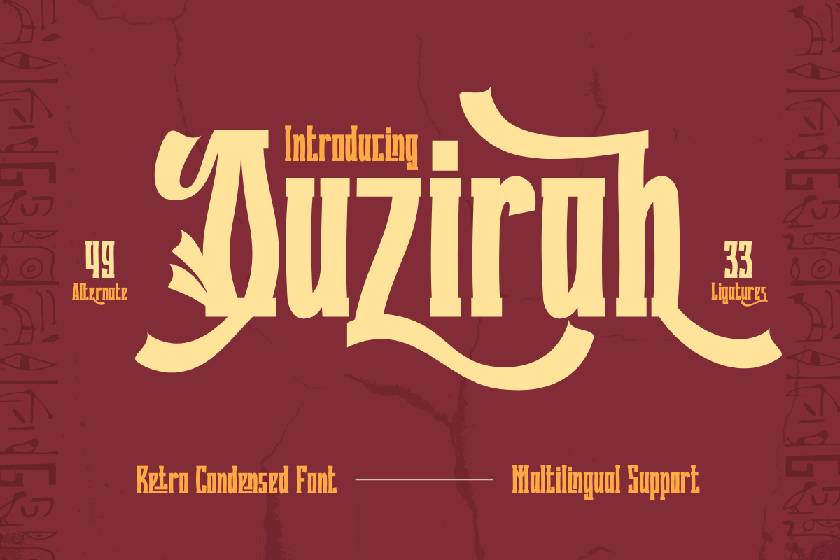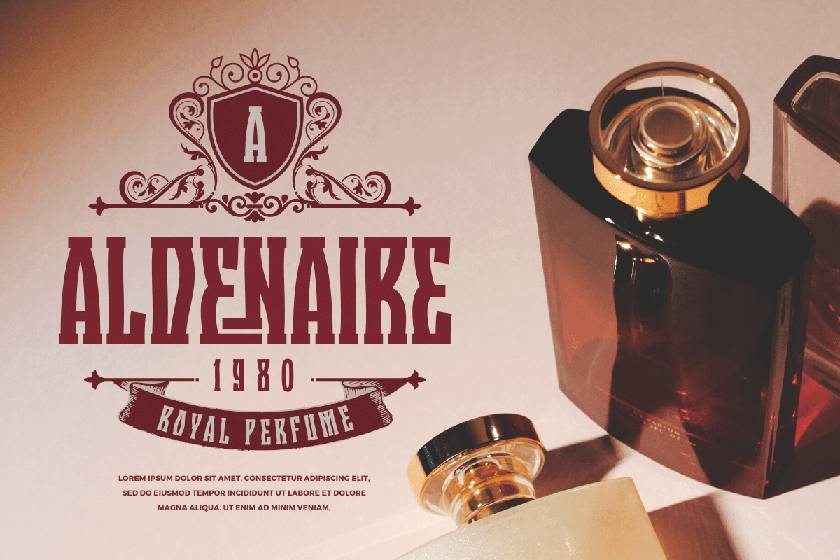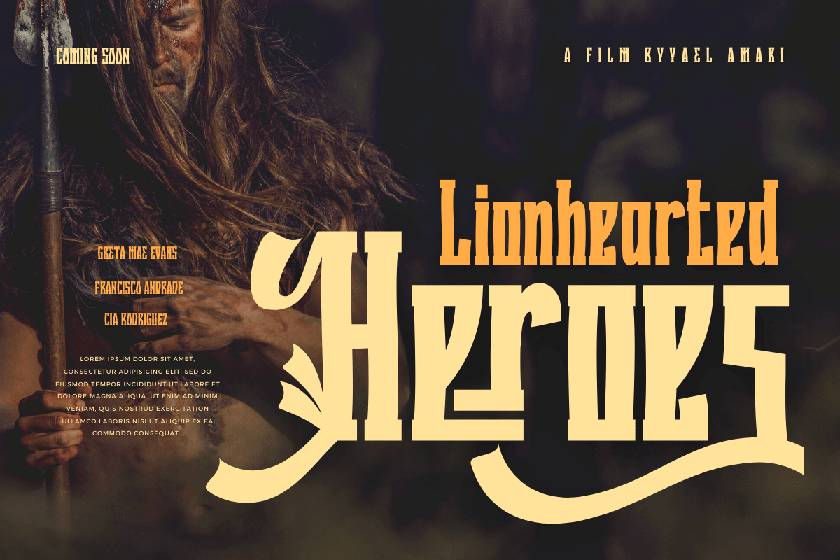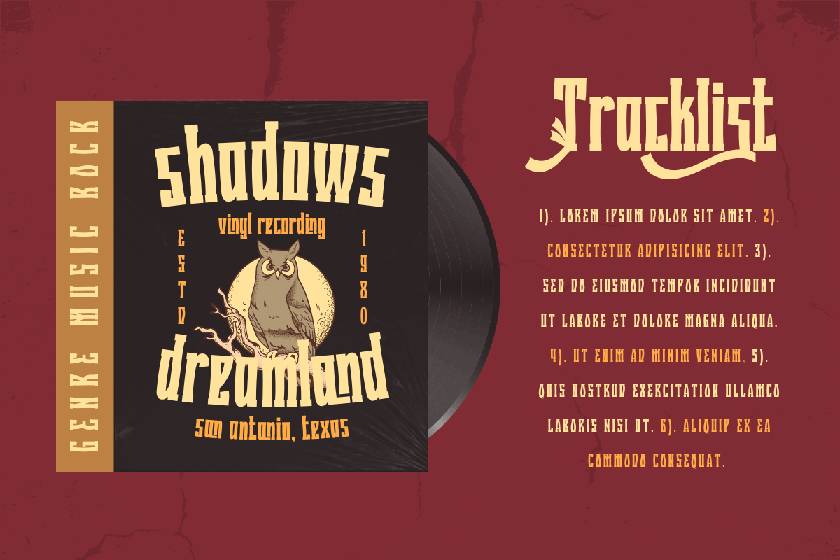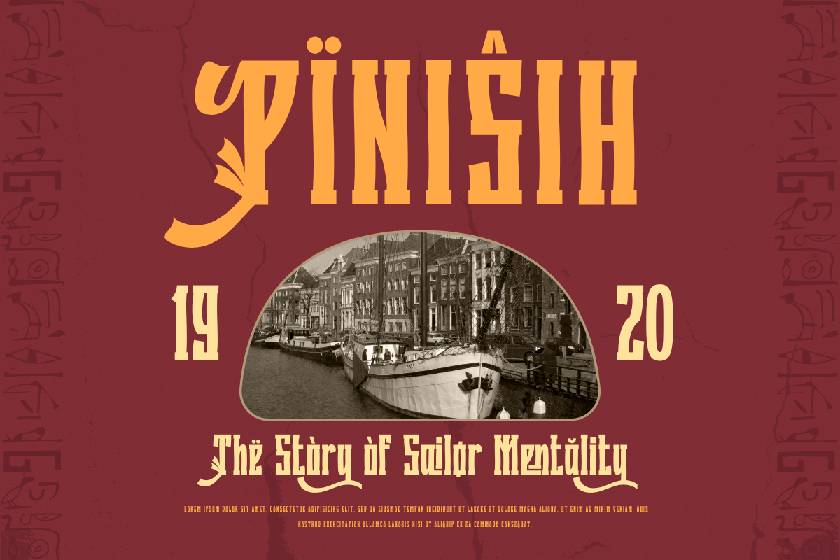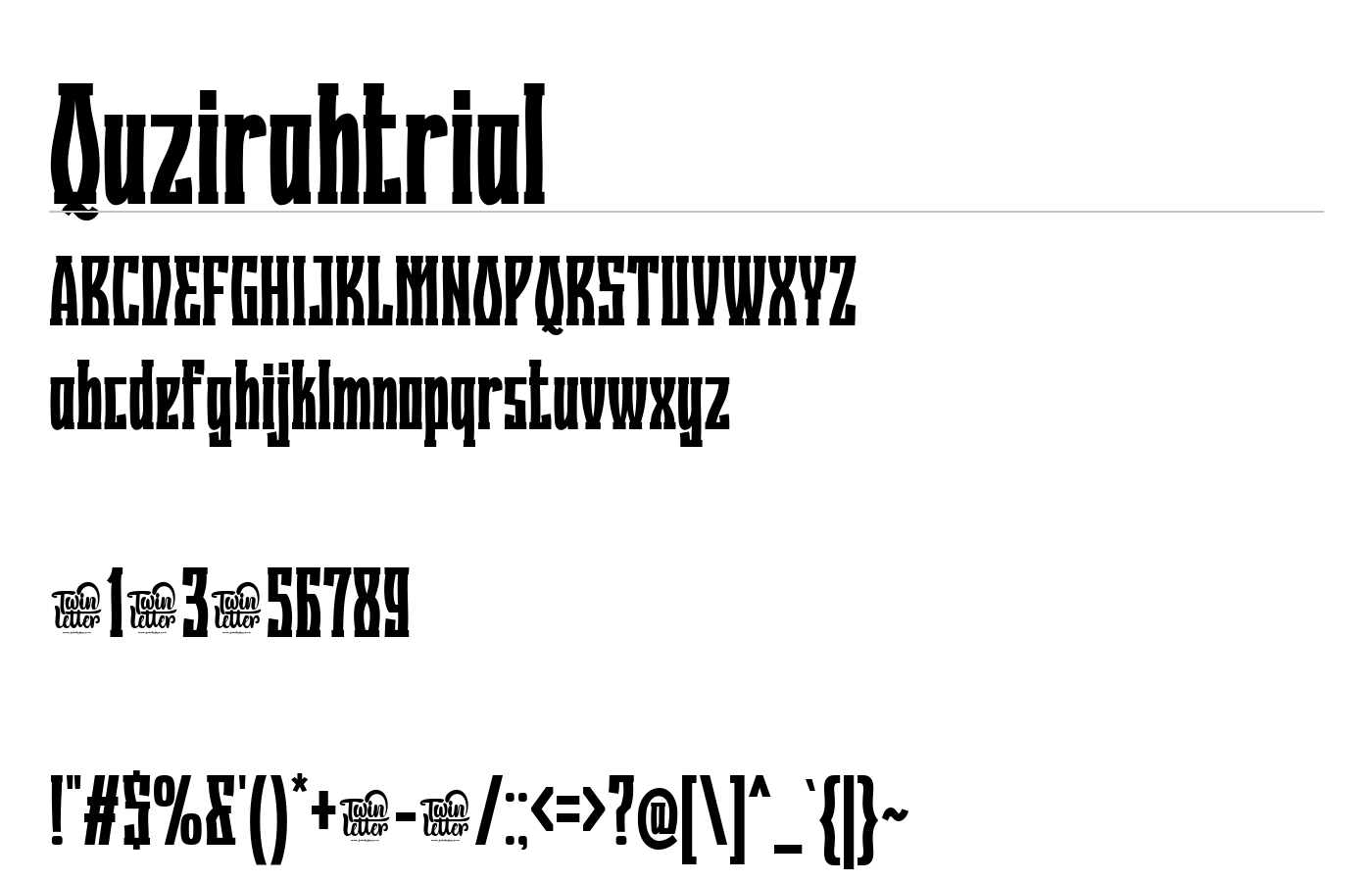
Quzirah is a bold and condensed serif font with a vintage Western feel, characterized by its strong vertical stress and sharp, blocky serifs. The font features a high contrast between thick and thin strokes and a tall x-height, giving it a striking and authoritative presence. Ideal for eye-catching headlines, posters, and branding that demands a rugged yet stylish look, Quzirah brings a nostalgic yet powerful personality to any design.
Quzirah Font
About Quzirah Font
| Font family | Quzirah Font |
| Release date | 2023-01-12 |
| Designer | Ojak |